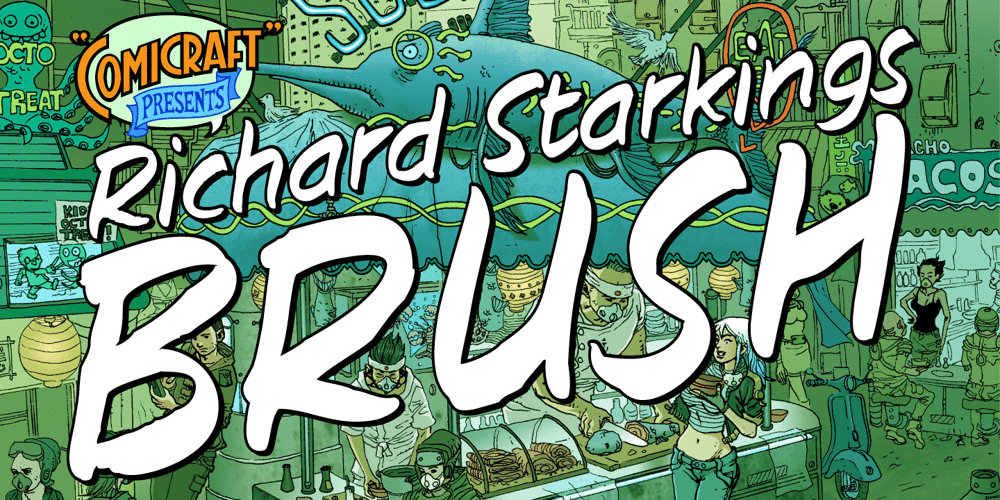
Richard Starkings Brush
Richard Starkings Brush font
Richard Starkings Brush Font Family was designed by Richard Starkings, John Roshell and published by Comicraft. Richard Starkings Brush contains 4 styles and family package options. Leathery and Loopy Letterer of Legend, Richard Starkings has pointed his Apple Pencil at Procreate on his iPad and proceeded to raise the bar on lower case for this scandalous series of squiggles we had to call SCOUNDREL!Rendered in the style of ShoutOut, this jaunty new Comicraft offering features both upper and lower case and recreates a pen lettering style of which we honestly thought Old Man Starkings was no longer capable! Suitable for jolly journal entries, hand-written notes to loved ones and sundry laundry lists, SCOUNDREL does more than Shout, and it does it quite quietly too!